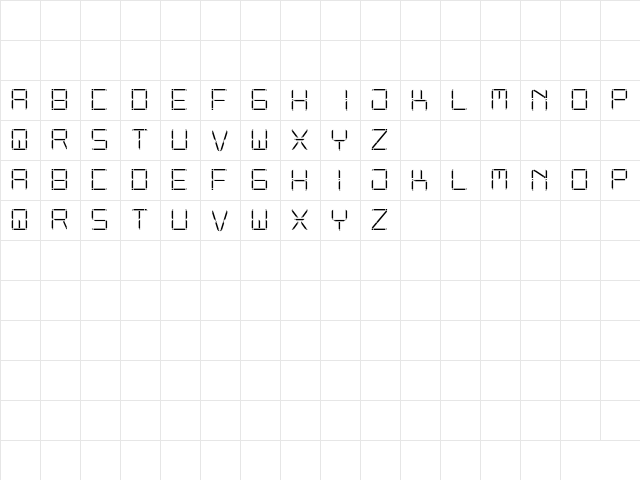
Other Display St Regular
Design Context for Other Display St Typeface
Other Display St brings ornamental detail and strong personality to headlines and identities, where visual impact matters more than quiet functionality.
Font Pairing: Pair with a clean neutral sans-serif for body copy to let Other Display St's character lead without overwhelming the composition.
Pro Tip: Use Other Display St exclusively at display sizes — it was designed to be seen, not read at length. Let a neutral companion handle body copy.